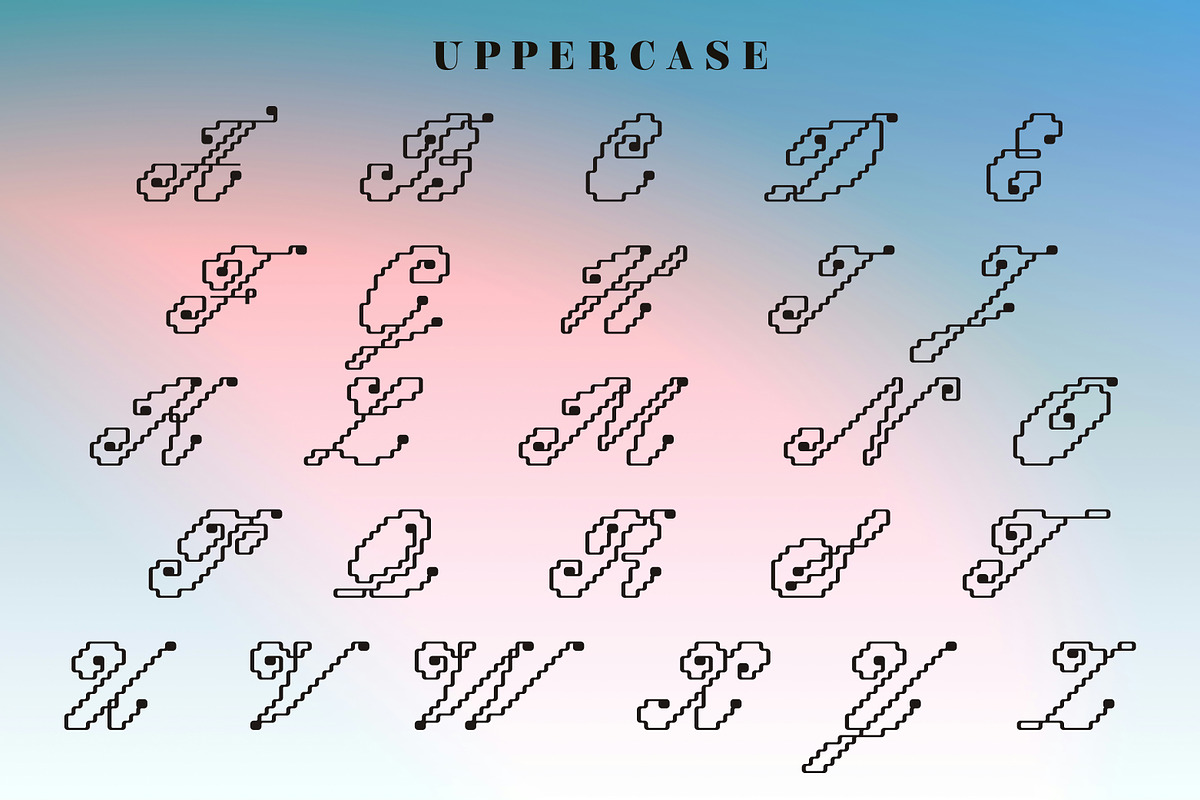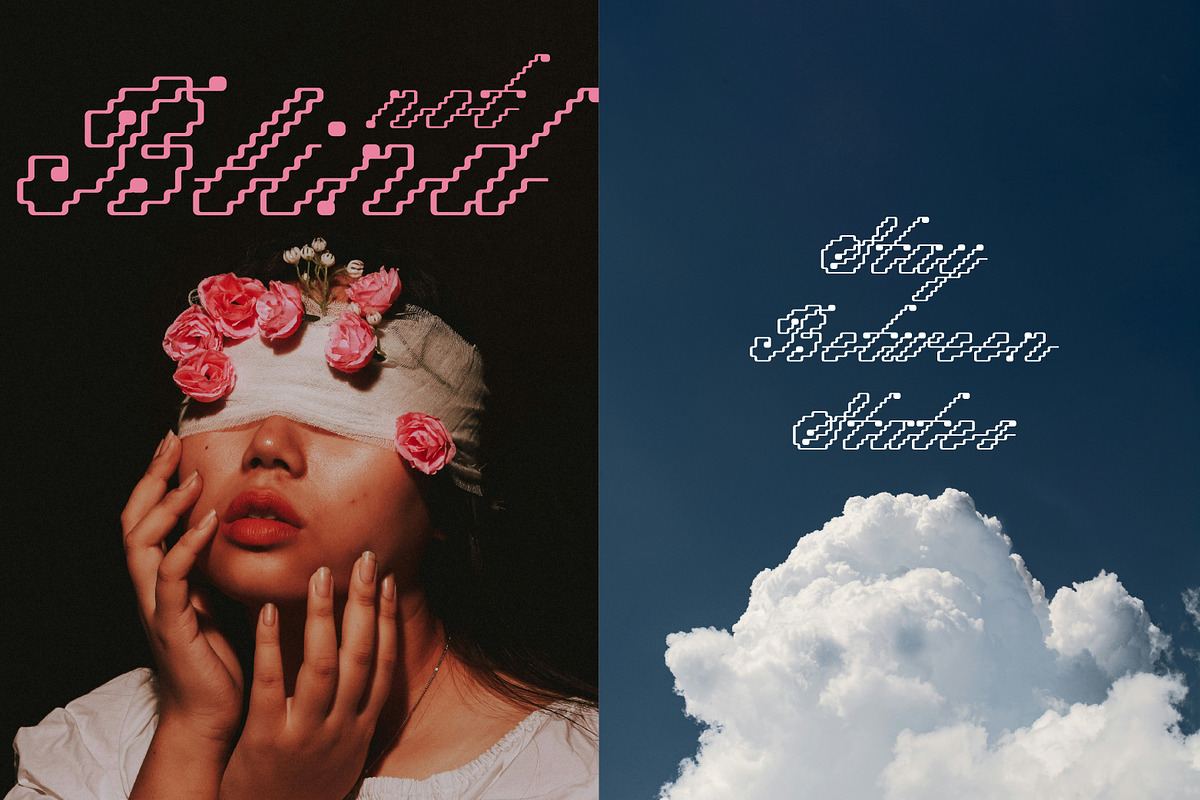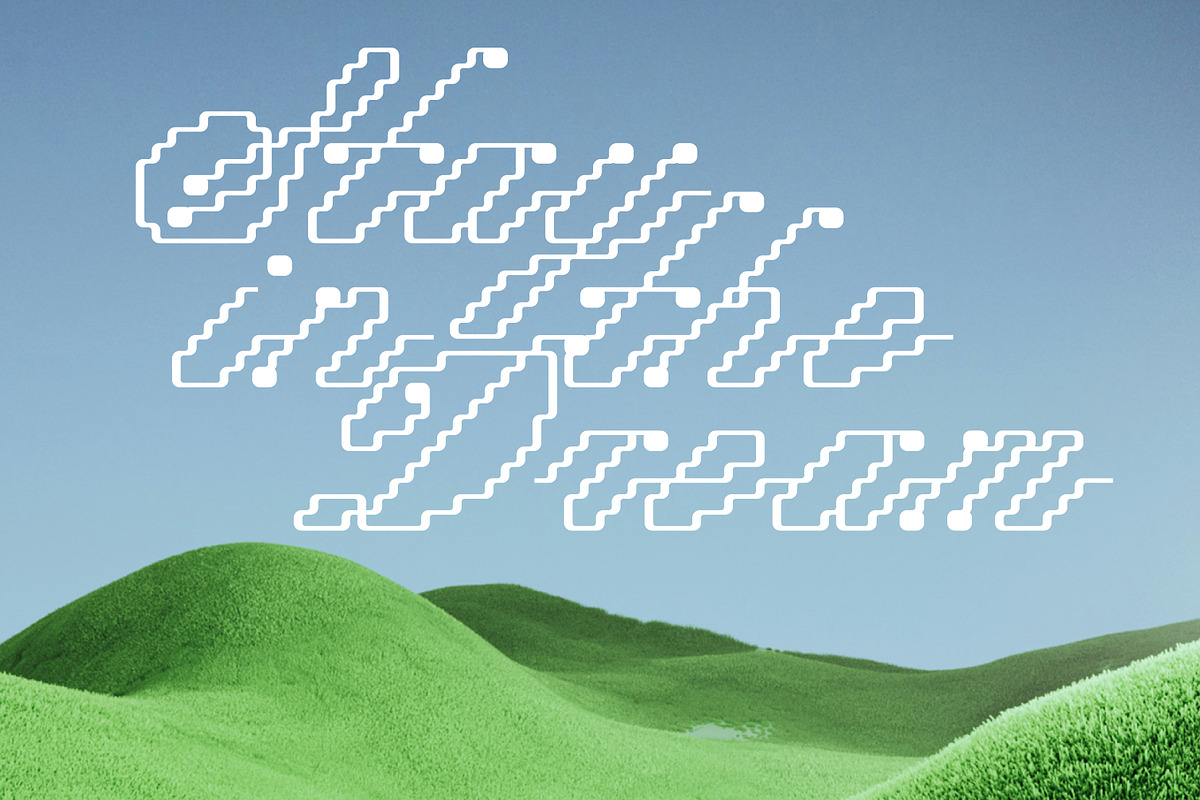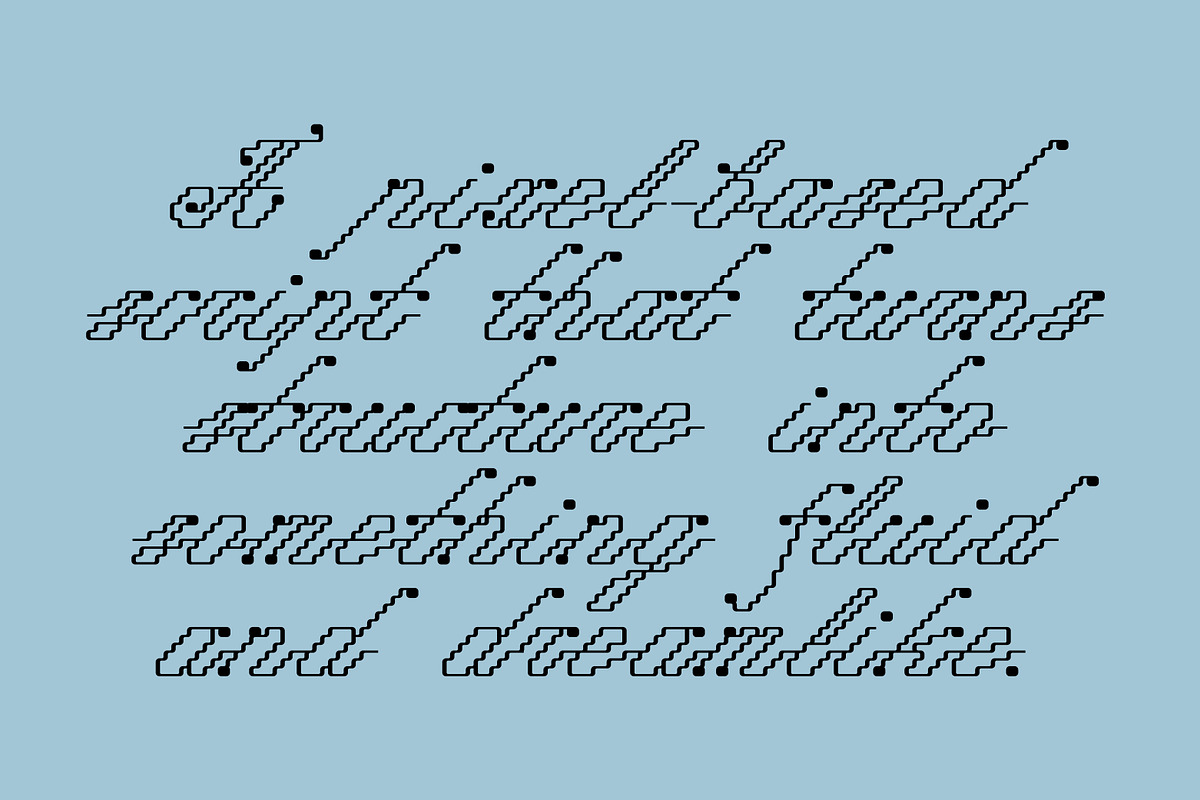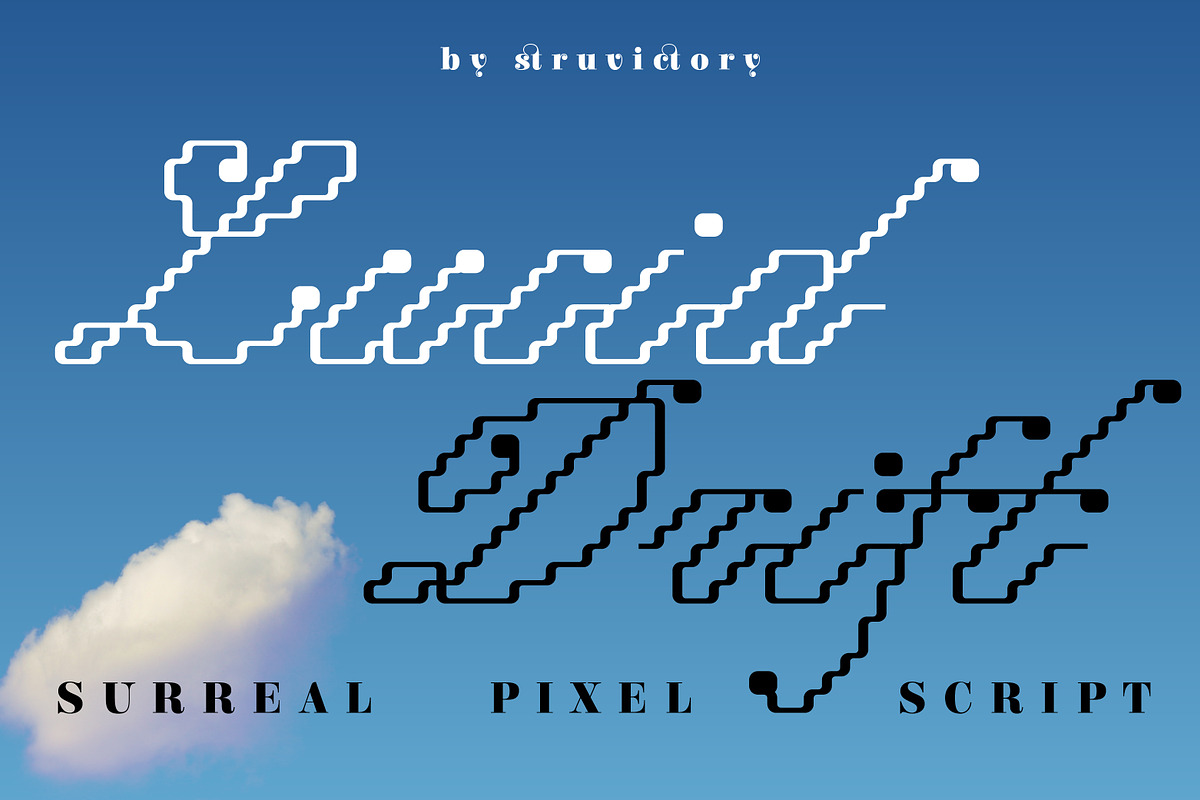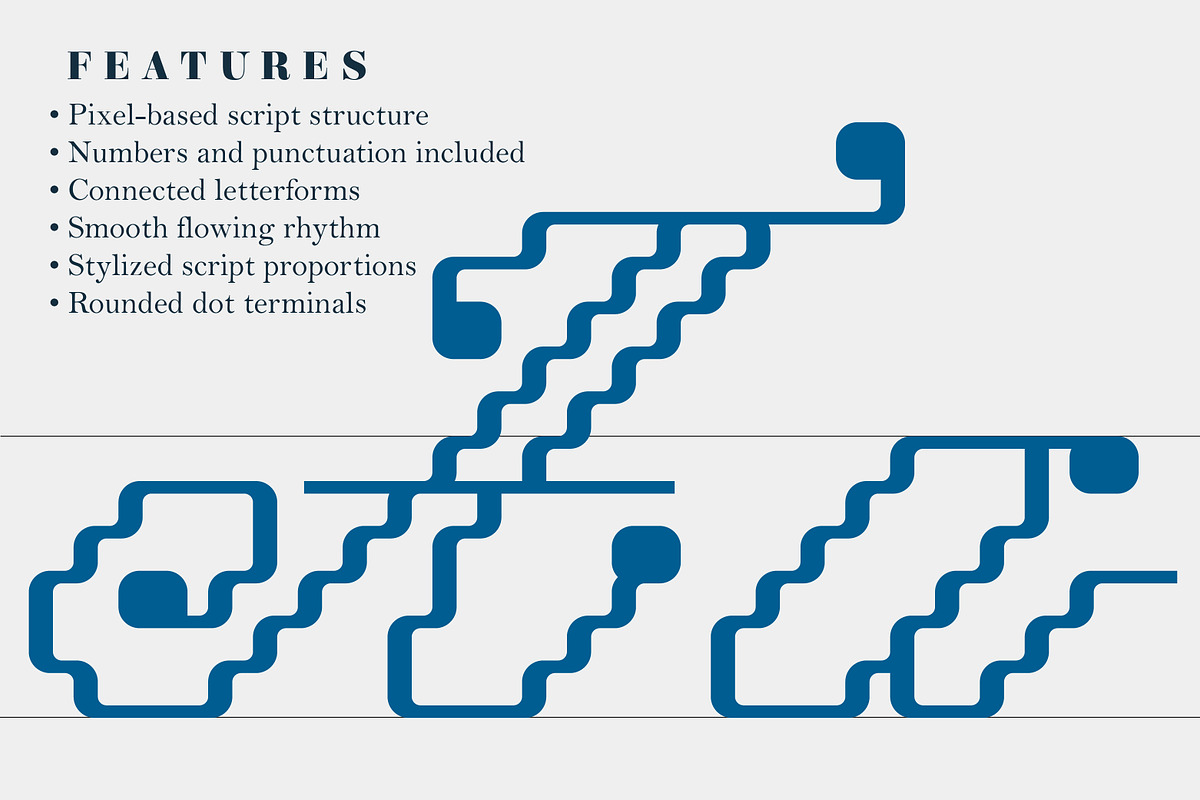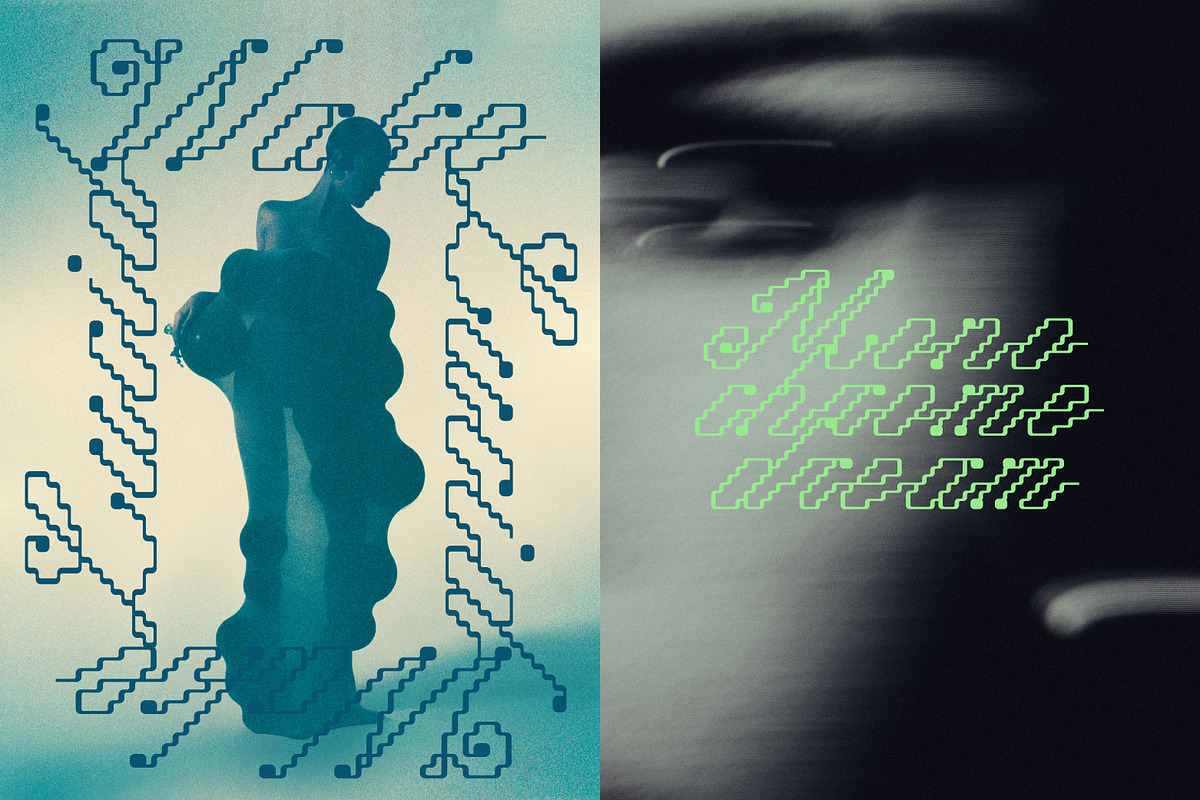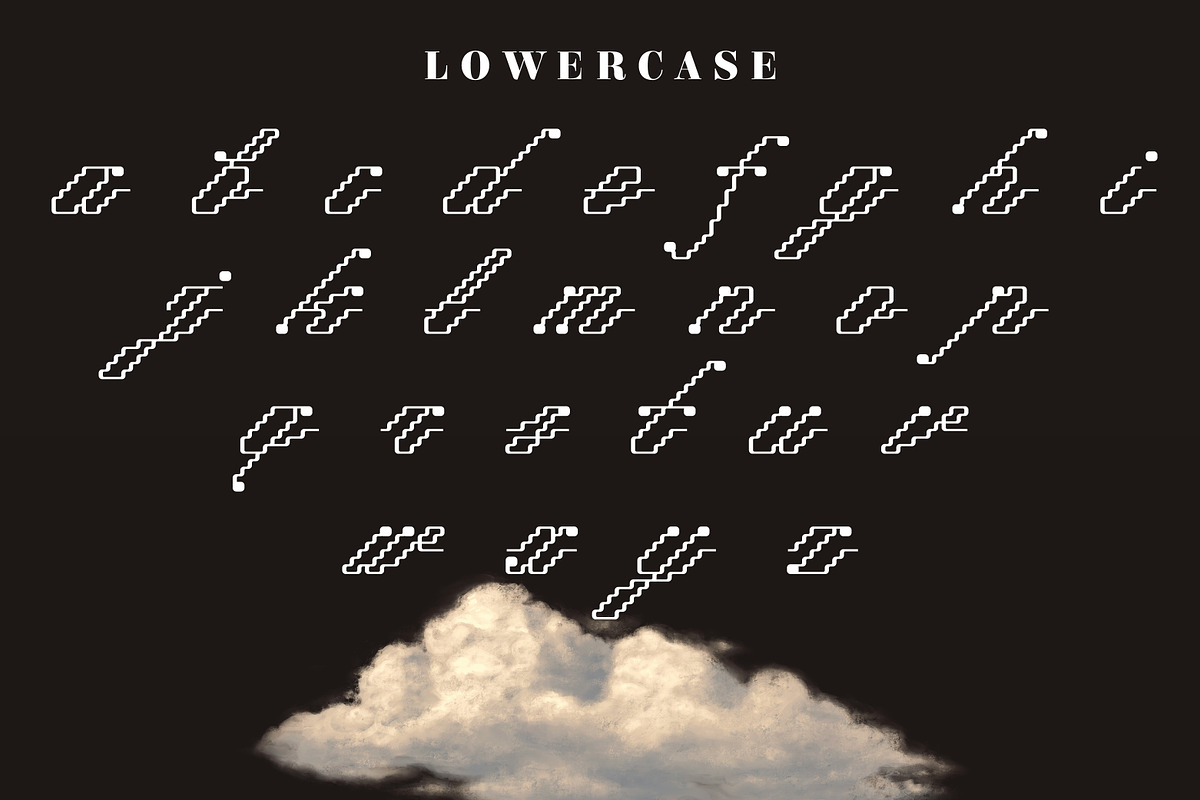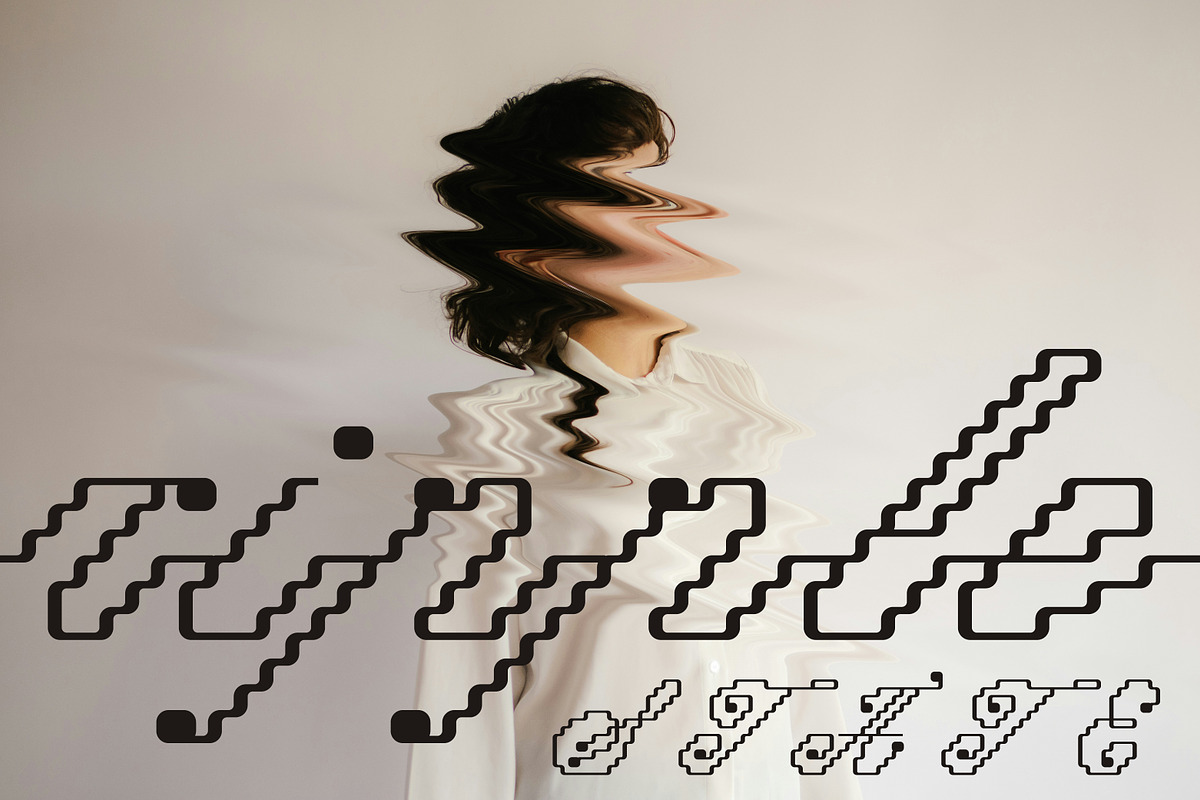
Lucid Drift Pixel Surreal Script
Lucid Drift is a surreal pixel script that blends structured digital forms with a soft, flowing handwritten rhythm. Built on a grid yet shaped by gentle curves and connected strokes, it creates a unique balance between precision and fluidity. Rounded dot terminals and smooth transitions give the letterforms a calm, drifting feel, while maintaining clarity and consistency. Ideal for branding, editorial layouts, posters, and expressive typography, Lucid Drift brings a quiet, dreamlike presence to modern design.